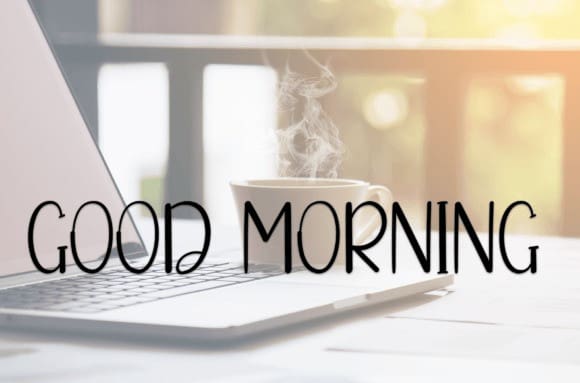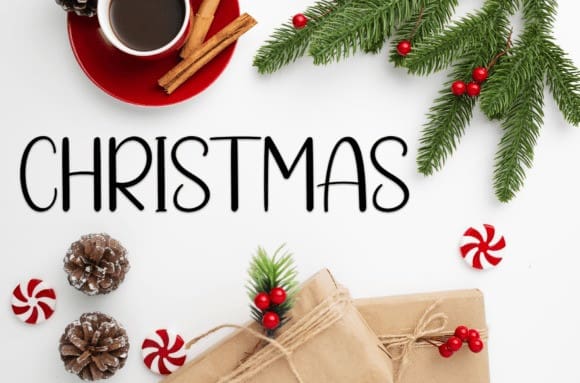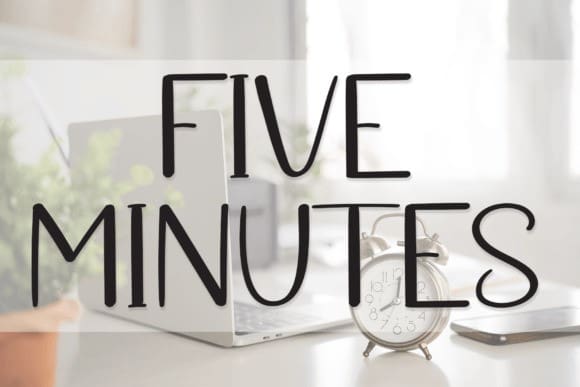
Five Minutes Font
Five Minutes Font is a sweet and friendly handwritten font. Fun and relaxed, this font is ideal for writing wedding invitations, cards, or any other design that might need a lovely touch!